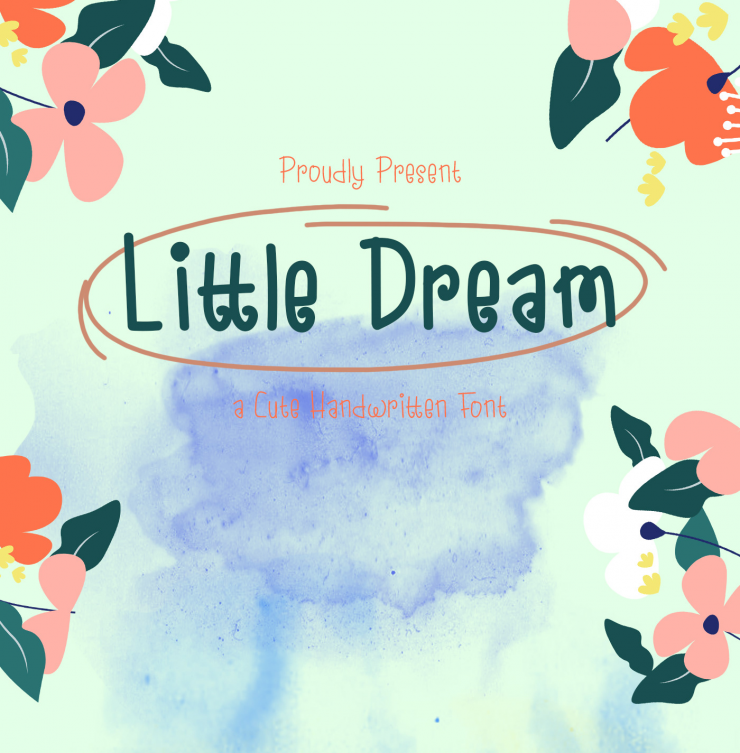
Little Dreams – new font from Aphriell Art, Feminim smoth feel character set. To create the beautiful combination, just mix the uppercase and lowercase, there are three styles italic, regular and Bold.